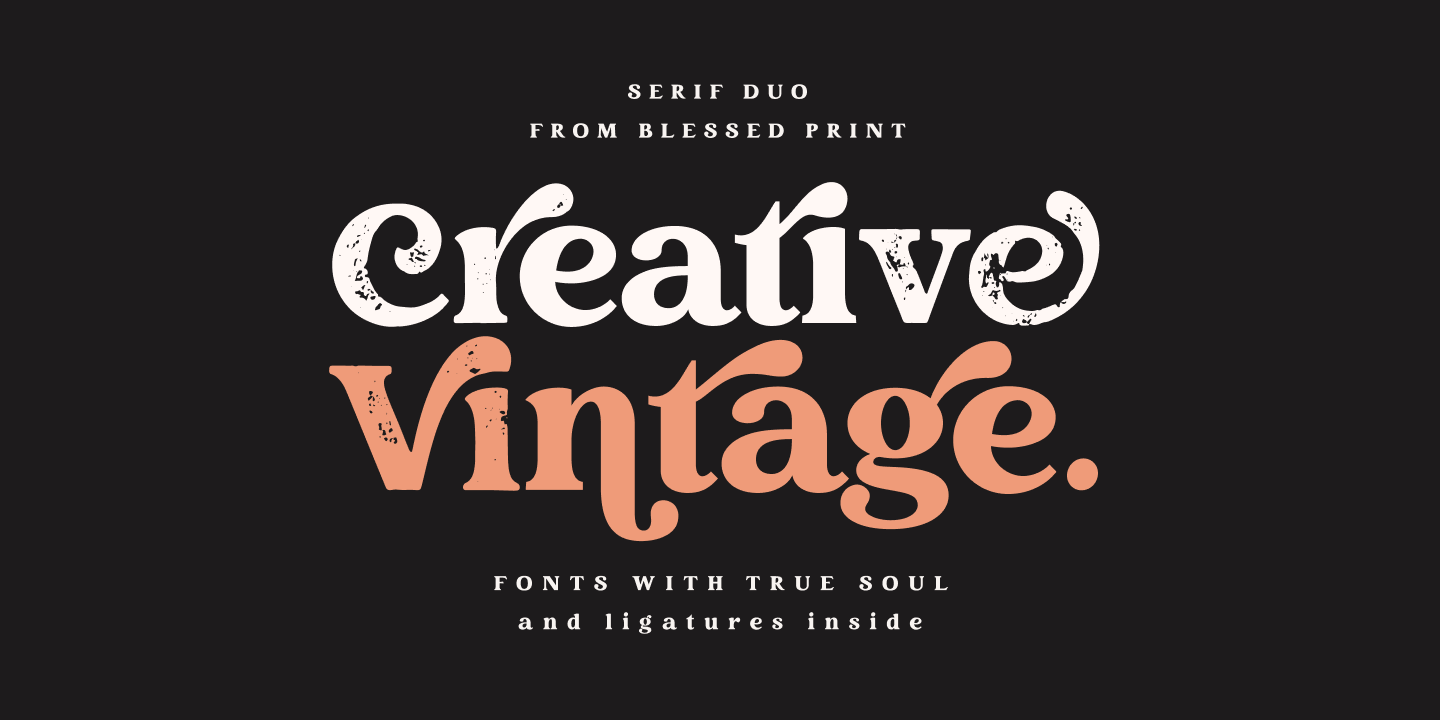
Creative Vintage Font is perfect for artisanal branding, craft beer labels, vintage cafe signage, retro band posters, handmade product packaging, antique store logos, nostalgic greeting cards, classic book covers, and creative heritage projects. This imaginative typeface brings artistic flair and period authenticity to projects requiring unique vintage character and creative expression.
What makes Creative Vintage Font exciting is its artistic interpretation of classic typography that blends historical inspiration with contemporary creative vision and imaginative design elements. The font features decorative flourishes with vintage textures and creative embellishments that capture the spirit of old-world craftsmanship while adding modern artistic sensibility. Its expressive character and innovative personality make it irresistible for creative professionals seeking typography that honors tradition while embracing artistic innovation and creative freedom.
The Creative Vintage Font family includes artistic weights and decorative styles: Regular, Bold, Ornate, Distressed, Shadow, and Outline variations with decorative borders and vintage ornaments. Each style maintains the font's creative character while offering designers unlimited artistic flexibility for imaginative branding and expressive design applications.
Whether you're designing for creative businesses or artistic ventures, Creative Vintage Font Free Download offers designers an inventive, artistically-rich typeface solution. The font's creative aesthetics and vintage-inspired styling make it ideal for craft breweries, design studios, vintage boutiques, and artistic entrepreneurs. Its distinctive presence ensures your message communicates creativity and authenticity while maintaining strong visual impact. The comprehensive character set includes decorative alternates and artistic symbols, making it perfect for creating captivating headlines and brand identities that celebrate artistic heritage and establish memorable connections with audiences seeking unique, creative vintage experiences.